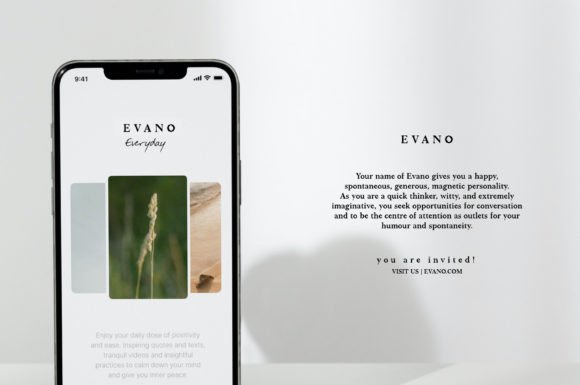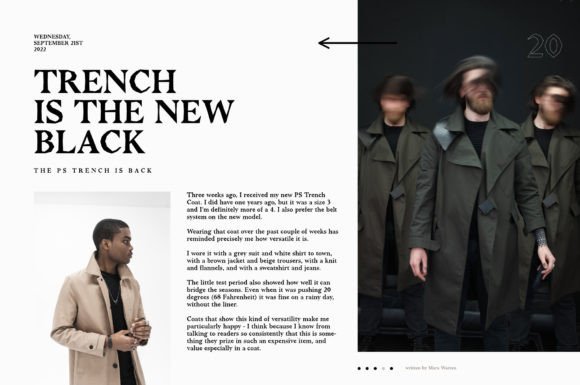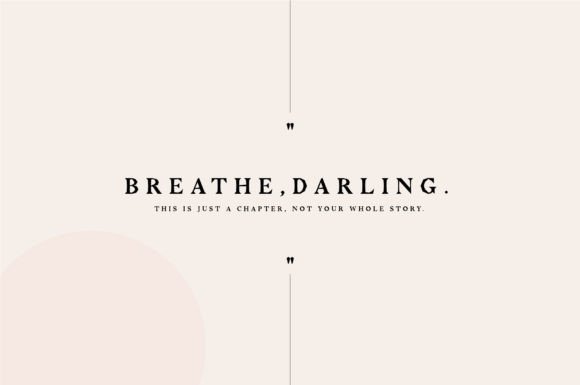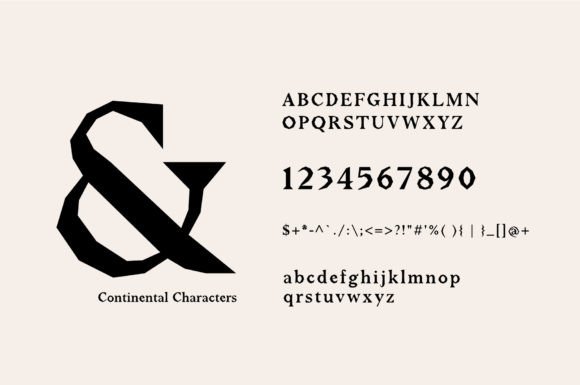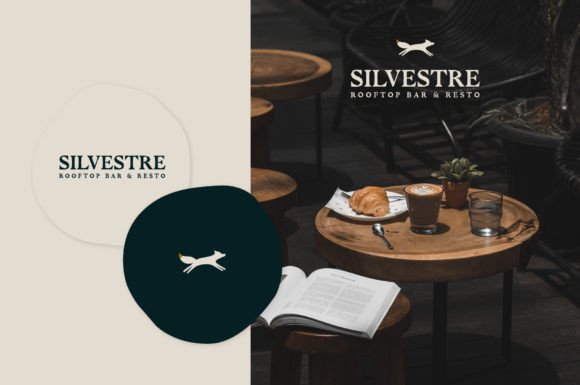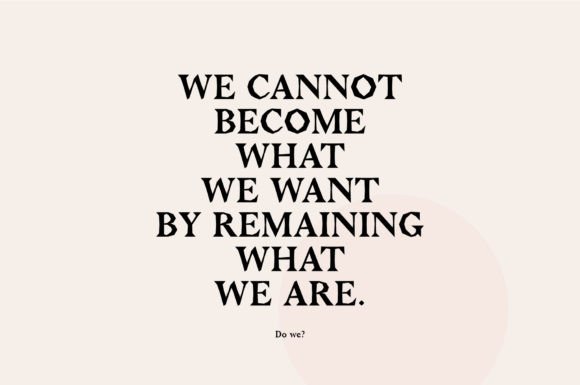
Discover the Unique Charm of Continental Font: A Rugged Serif Typeface
In the world of typography, a good font can make all the difference in the success of a design project. Whether you’re working on a book, magazine, fashion brand, or website, the right typeface can elevate your content and leave a lasting impression on your audience. If you’re on the hunt for a distinctive and versatile font, look no further than Continental, a rugged serif typeface that’s sure to stand out from the crowd.
The Distinctive Features of Continental Font
Continental is a serif typeface that boasts sharp corners, giving it a unique and rugged charm. Its distinctive features make it an excellent choice for designers who want to add a touch of personality to their work. The font’s sharp corners allow it to stand on its own in terms of uniqueness, making it perfect for projects that require a bold and eye-catching typeface.
Versatility at Its Best: Continental Font in Different Settings
One of the best things about Continental font is its versatility. It works exceptionally well in both large and small settings, making it an ideal choice for a wide range of design projects. Whether you’re designing a billboard, a book cover, or a social media post, Continental font is sure to make a statement. Its clarity and legibility ensure that your message gets across, regardless of the size or medium.
Ideal Applications for Continental Font
So, what are the ideal applications for Continental font? The answer is: many! This rugged serif typeface is perfect for:
- Books: Add a touch of sophistication and elegance to your book covers or interior designs with Continental font.
- Fashion: Use Continental font to give your fashion brand a bold and stylish voice.
- Magazines: Make your magazine stand out with Continental font’s unique and eye-catching design.
- Stationery: Add a personal touch to your stationery designs with Continental font’s charming and rustic feel.
- Web Design: Use Continental font to create a bold and memorable online presence.
- Social Media: Make your social media posts stand out with Continental font’s distinctive and attention-grabbing design.
Why Choose Continental Font?
If you’re looking for a distinctive typeface for your designs, then Continental font is an excellent choice. Here are just a few reasons why:
- Unique Design: Continental font’s sharp corners and rugged serif design make it a one-of-a-kind typeface.
- Versatility: Use Continental font in a wide range of design projects, from large-scale billboards to small social media posts.
- Legibility: Continental font is clear and easy to read, making it perfect for body text or headlines.
- Elegance: Add a touch of sophistication and elegance to your designs with Continental font’s charming and rustic feel.
In conclusion, Continental font is a rugged serif typeface that’s sure to make a statement in your design projects. Its unique features, versatility, and legibility make it an ideal choice for a wide range of applications. Whether you’re a designer, craftsperson, or DIY enthusiast, Continental font is a great addition to your typography toolkit. So why not give it a try and see how Continental font can elevate your designs to the next level?